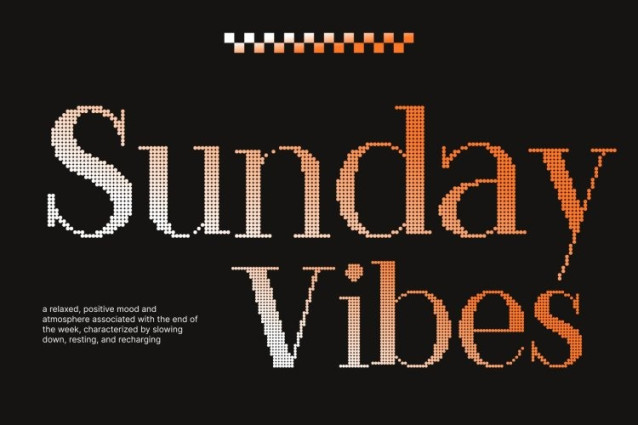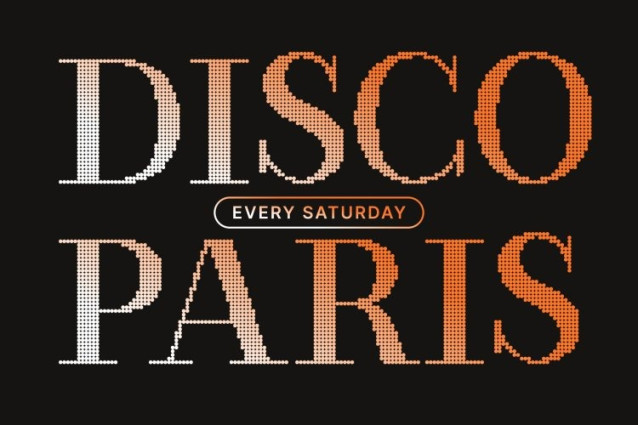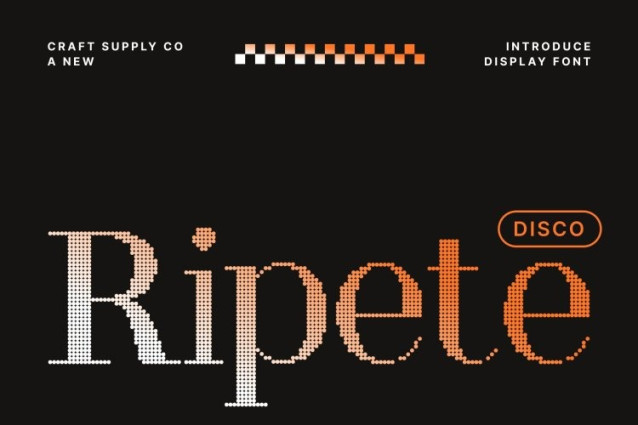
Ripete Disco Font
Ripete Disco Font This is a retro inspired serif font that brings classic 70s character into the spotlight with a refreshing modern twist. Its playful curves, expressive serifs, and lively rhythm capture the warmth of vintage typography while staying clean and contemporary. This balance of nostalgia and modern flair gives your designs a joyful, and personality that stands out.
Classic 70s Vibes with Stylish Serifs
The charming serif details in this font channel the spirit of the 70s bold, expressive, and full of attitude. Each letterform carries a smooth retro flow that feels both familiar and exciting. Its well-crafted curves and distinctive shapes deliver a strong visual identity.
Disco Sparkle for Lively Visual Energy
A subtle disco sparkle elevates this font with a sense of motion and fun. This shimmering vibe adds life and enthusiasm to your typography, making the font perfect for joyful, upbeat, and celebratory themes. Whether you’re building festive graphics or playful branding, the disco effect helps your message shine with personality and charm.
Perfect for Vintage Branding, Posters, and Event Graphics
This font thrives in vintage-inspired branding, retro posters, and cheerful event visuals. Its energetic style enhances logos, packaging, invitations, social media posts, and editorial layouts with ease. Use this font to infuse your projects with happiness, nostalgia, and standout character.